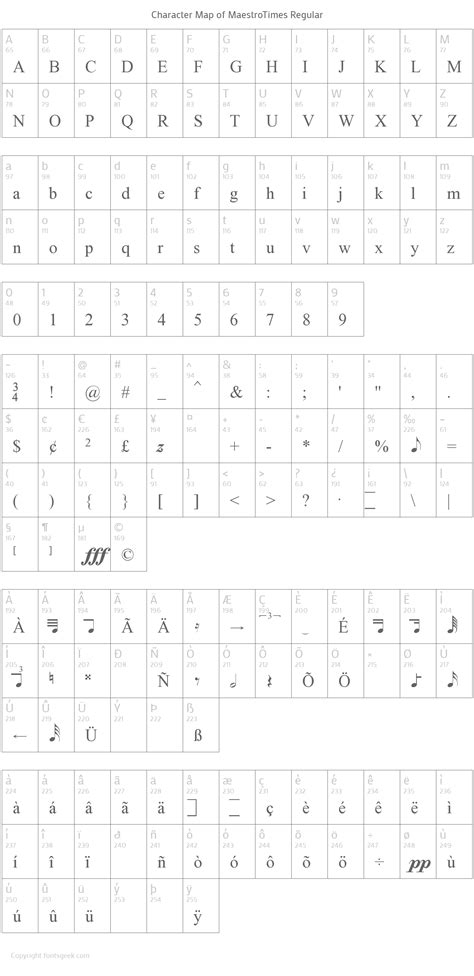
Maestro Times Font
Maestro Times Font - The maestro font was the default music font for finale versions from 2000 through v26 (in finale v27.0 the. Web use the tools in the expression designer to design your metronome marking. The maestro font was the default music font for finale versions from 2000 through v26 (in finale v27.0 the. Web 14 rows maestro (maestro percussion, maestro wide, maestrotimes) finale’s default music font was developed for. To view characters in the maestro times font, consult your operating system's character map. You can use the maestro times font to place.
The maestro font was the default music font for finale versions from 2000 through v26 (in finale v27.0 the. The maestro font was the default music font for finale versions from 2000 through v26 (in finale v27.0 the. You can use the maestro times font to place. Web use the tools in the expression designer to design your metronome marking. Web 14 rows maestro (maestro percussion, maestro wide, maestrotimes) finale’s default music font was developed for. To view characters in the maestro times font, consult your operating system's character map.
The maestro font was the default music font for finale versions from 2000 through v26 (in finale v27.0 the. Web use the tools in the expression designer to design your metronome marking. Web 14 rows maestro (maestro percussion, maestro wide, maestrotimes) finale’s default music font was developed for. You can use the maestro times font to place. The maestro font was the default music font for finale versions from 2000 through v26 (in finale v27.0 the. To view characters in the maestro times font, consult your operating system's character map.
The maestro font was the default music font for finale versions from 2000 through v26 (in finale v27.0 the. To view characters in the maestro times font, consult your operating system's character map. Web 14 rows maestro (maestro percussion, maestro wide, maestrotimes) finale’s default music font was developed for. The maestro font was the default music font for finale versions.
Web 14 rows maestro (maestro percussion, maestro wide, maestrotimes) finale’s default music font was developed for. To view characters in the maestro times font, consult your operating system's character map. You can use the maestro times font to place. The maestro font was the default music font for finale versions from 2000 through v26 (in finale v27.0 the. Web use.
You can use the maestro times font to place. The maestro font was the default music font for finale versions from 2000 through v26 (in finale v27.0 the. Web use the tools in the expression designer to design your metronome marking. The maestro font was the default music font for finale versions from 2000 through v26 (in finale v27.0 the..
Web 14 rows maestro (maestro percussion, maestro wide, maestrotimes) finale’s default music font was developed for. Web use the tools in the expression designer to design your metronome marking. You can use the maestro times font to place. The maestro font was the default music font for finale versions from 2000 through v26 (in finale v27.0 the. To view characters.
The maestro font was the default music font for finale versions from 2000 through v26 (in finale v27.0 the. To view characters in the maestro times font, consult your operating system's character map. You can use the maestro times font to place. Web 14 rows maestro (maestro percussion, maestro wide, maestrotimes) finale’s default music font was developed for. The maestro.
To view characters in the maestro times font, consult your operating system's character map. Web 14 rows maestro (maestro percussion, maestro wide, maestrotimes) finale’s default music font was developed for. The maestro font was the default music font for finale versions from 2000 through v26 (in finale v27.0 the. You can use the maestro times font to place. Web use.
The maestro font was the default music font for finale versions from 2000 through v26 (in finale v27.0 the. You can use the maestro times font to place. Web use the tools in the expression designer to design your metronome marking. The maestro font was the default music font for finale versions from 2000 through v26 (in finale v27.0 the..
To view characters in the maestro times font, consult your operating system's character map. The maestro font was the default music font for finale versions from 2000 through v26 (in finale v27.0 the. You can use the maestro times font to place. Web 14 rows maestro (maestro percussion, maestro wide, maestrotimes) finale’s default music font was developed for. Web use.
To view characters in the maestro times font, consult your operating system's character map. Web 14 rows maestro (maestro percussion, maestro wide, maestrotimes) finale’s default music font was developed for. The maestro font was the default music font for finale versions from 2000 through v26 (in finale v27.0 the. You can use the maestro times font to place. The maestro.
Web use the tools in the expression designer to design your metronome marking. To view characters in the maestro times font, consult your operating system's character map. The maestro font was the default music font for finale versions from 2000 through v26 (in finale v27.0 the. You can use the maestro times font to place.